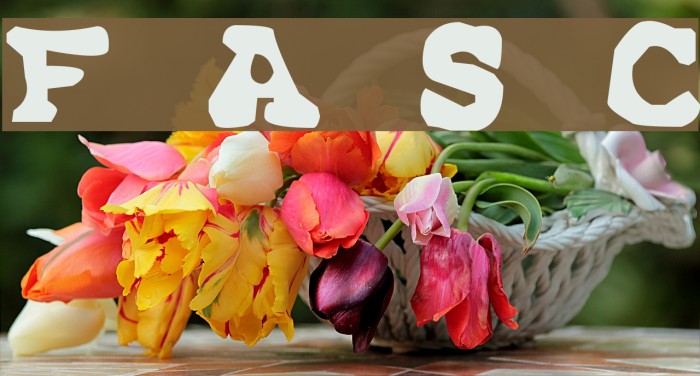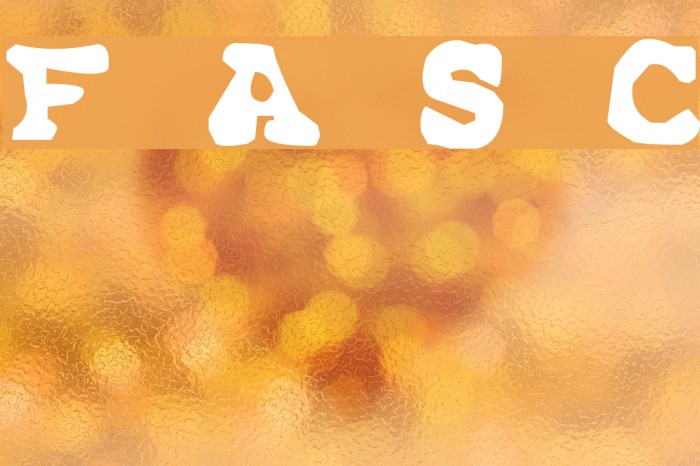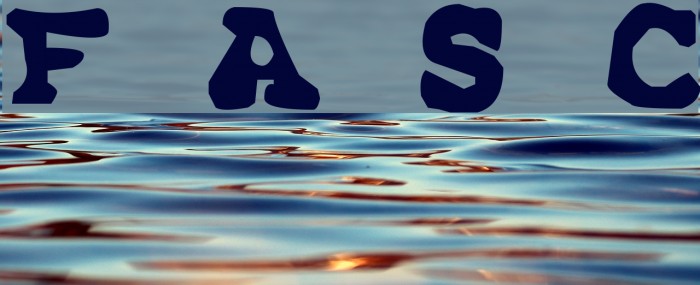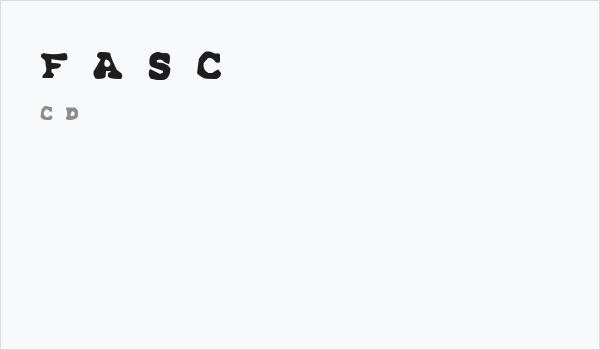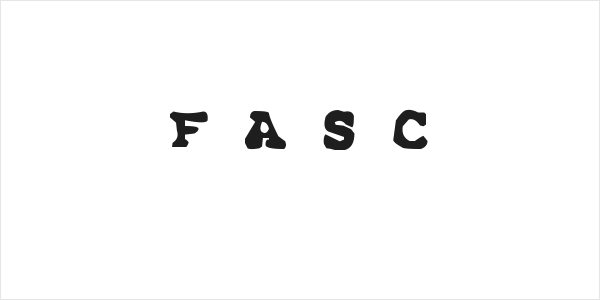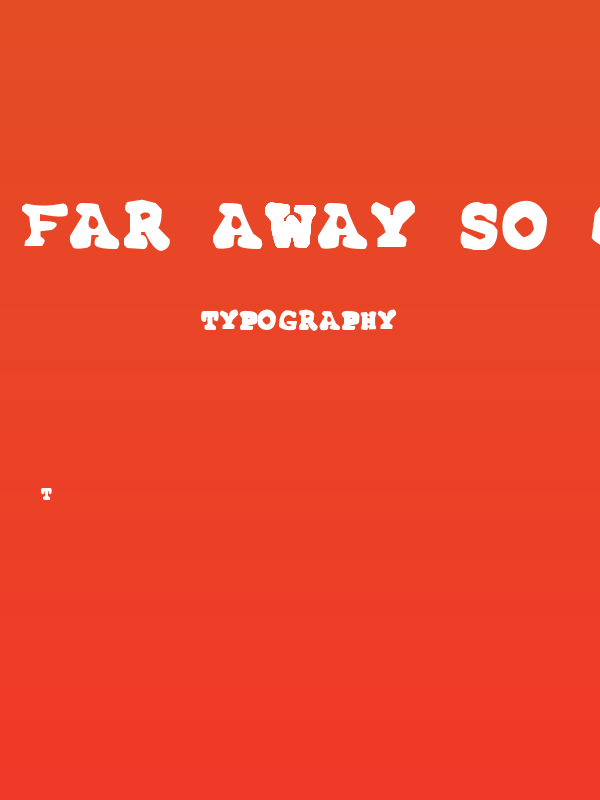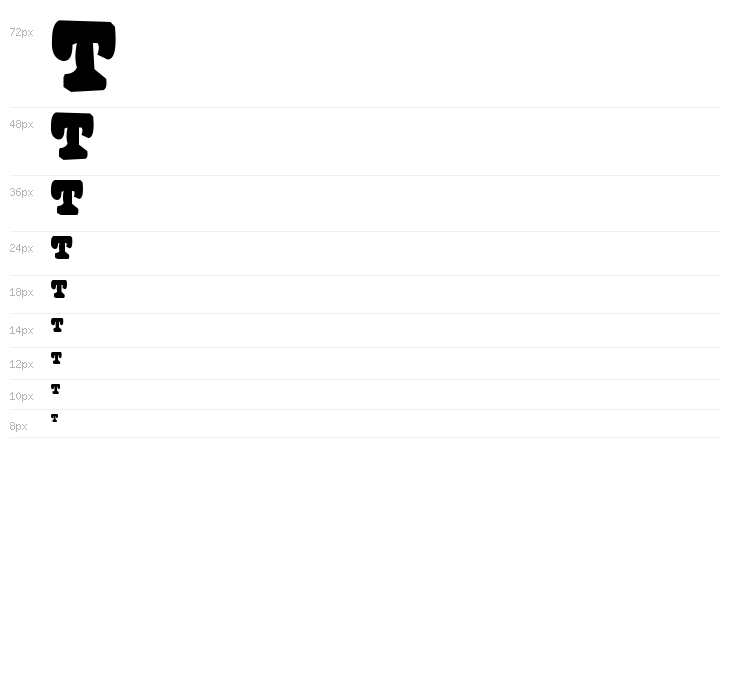
Far Away, So Close Font
Far Away, So Close Description
This font features bold, rounded characters with a playful and slightly retro aesthetic. The letters are thick and have a consistent weight throughout, giving them a strong presence. The edges are smooth and rounded, which adds to the friendly and approachable feel. The overall design is reminiscent of vintage signage or comic book lettering, making it ideal for projects that require a touch of nostalgia or whimsy. The uniformity in stroke width ensures readability while maintaining a decorative flair.
| Proposed Projects | Ideal for vintage-themed posters, comic book titles, playful branding, or children's book covers. |